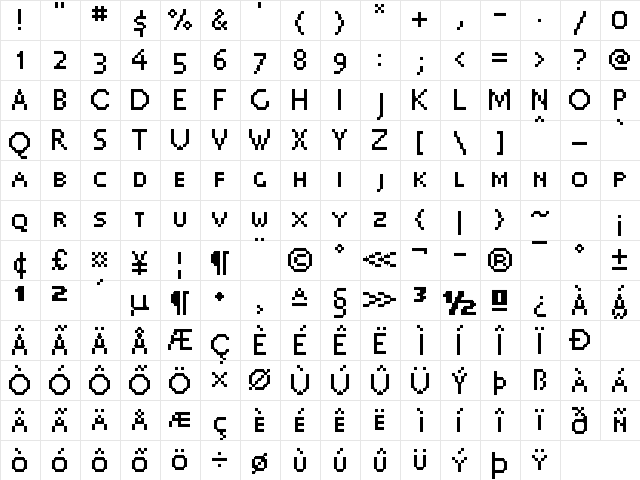
UF PT Neuquen Small Caps Regular
| Foundry | Ultrafonts |
| Designer | Hugo Perez of PixieType |
Design Context for UF PT Neuquen Small Caps Typeface
UF PT Neuquen Small Caps is a composed and adaptable typeface that performs quietly and consistently across a wide range of design contexts.